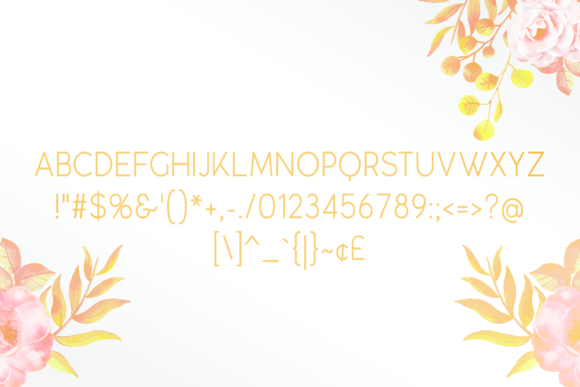
Unlocking Design Potential with the Klamoure Font
Have you ever been working on a design project, and suddenly, the perfect font pops into your mind? For many creatives, this moment of inspiration can be the spark that sets an entire concept ablaze. It’s the moment when everything falls into place, and the design begins to radiate life and energy.
This is exactly what the Klamoure Font is designed to do – to bring a touch of charm and personality to your designs. With its gorgeously simple sans serif style, this font is the perfect choice for anyone looking to add a unique twist to their work. Whether you’re a seasoned designer or just starting out, the Klamoure Font is a valuable addition to your toolkit.
Klamoure Font Key Features
- Font Family: Klamoure is a sans-serif font family.
- Size: Klamoure font comes in 6 weights: Light, Regular, Medium, Bold, Extra Bold, and Black.
- Unique Characteristics: Klamoure features a clean, modern design with a unique blend of geometric and organic elements, making it suitable for a wide range of applications, including corporate branding, digital products, and publishing.
Klamoure Font Review
Overall, I’m quite impressed with the Klamoure Font. Here are some things that work well:
- ✨ The font is highly customizable, offering a wide range of weights, styles, and sizes. This makes it perfect for designers who want to create unique and visually appealing typography.
- ✨ The font is highly legible, even at small font sizes. This makes it ideal for use in body text, headings, and even for small UI elements.
- ✨ The font is well-suited for a variety of design styles, from modern and minimalist to bold and playful.
- ⚠️ The font may not be the best choice for serif-heavy designs, as it can look a bit too clean and modern. For example, using Klamoure for a traditional or historical-themed design may not be the best fit.
- ⚠️ The font may require some tweaking to get the perfect look, especially when used in combination with other fonts or design elements.
Overall, I think the Klamoure Font is a solid choice for designers who want a highly customizable and legible font. While it may not be perfect for every design, it’s definitely worth considering for a wide range of projects.
Getting the Most Out of Klamoure Font
For optimal results, use the Klamoure font for headings, titles, and other display text. It’s also recommended to pair the font with other sans-serif fonts for body text. Experiment with different font sizes, colors, and combinations to create visually appealing designs.
The Klamoure font is ideal for creative projects, such as graphic design, digital art, and typography. It’s also suitable for business and marketing materials, like brochures, flyers, and presentations.